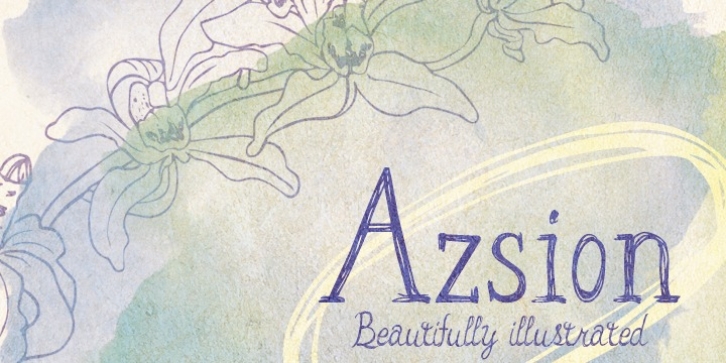
From Okaycat is the Azsion font, hand-lettered with loving hand in a distinctive style. This font is artistically textured with great detail, yet highly legible with a soft pleasant look.
Azsion matches well with Okaycat font, Azsitra. Illustrated pen & ink, artistic typography for that hand drawing look. Azsion is extended, containing West European diacritics & ligatures, making it suitable for multilingual environments & publications.